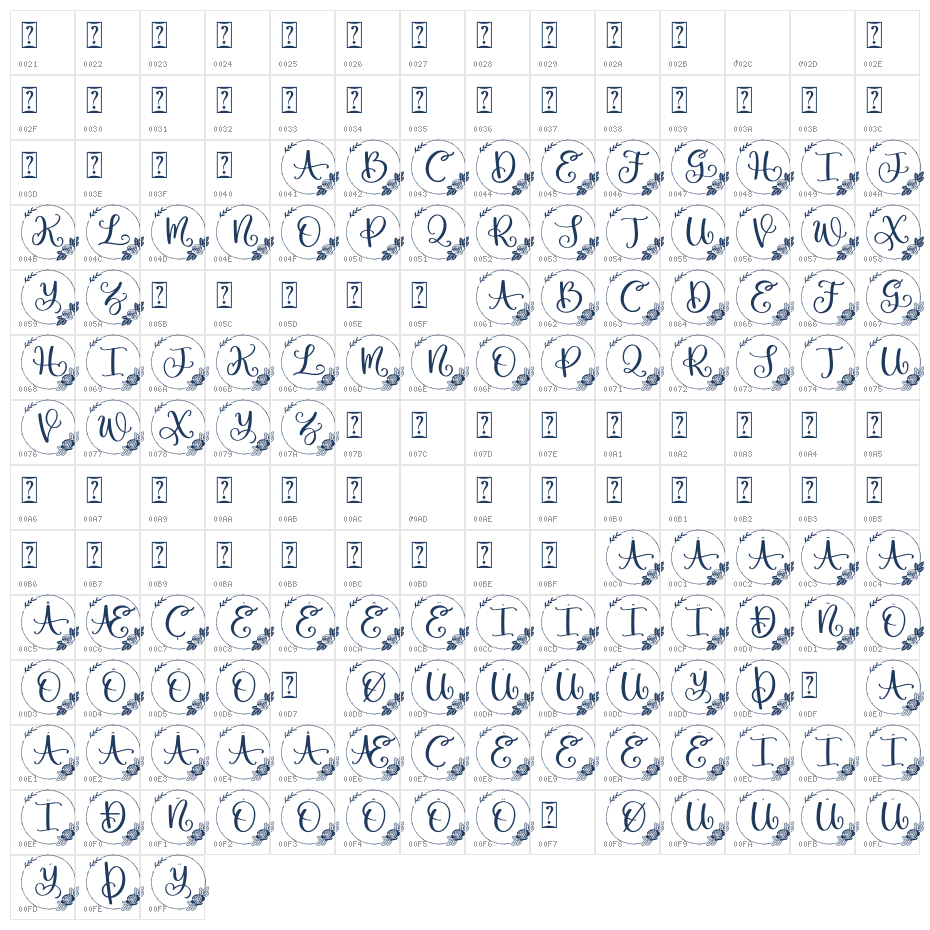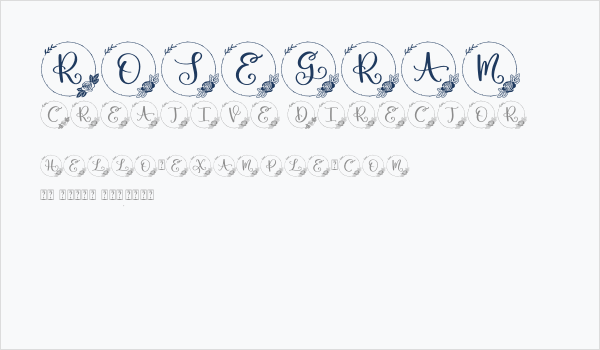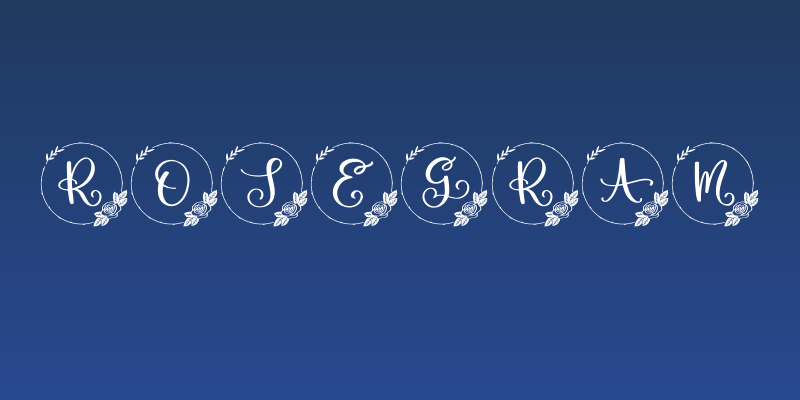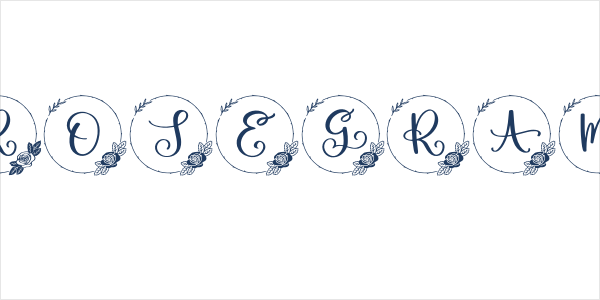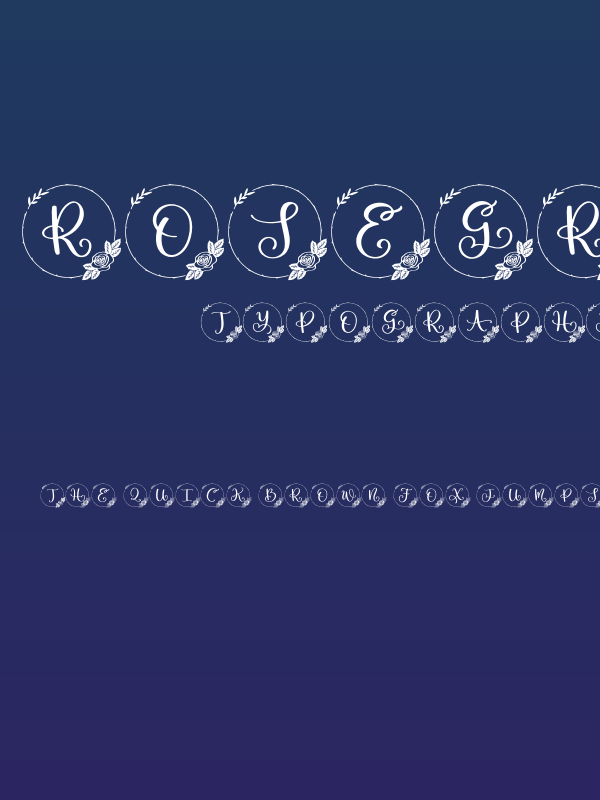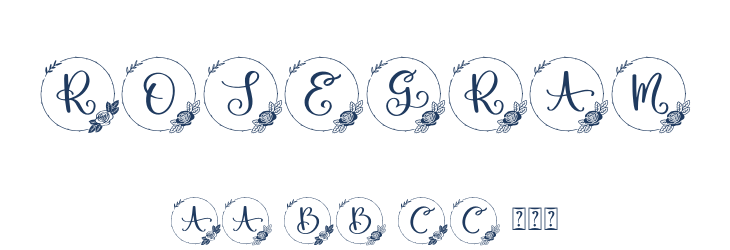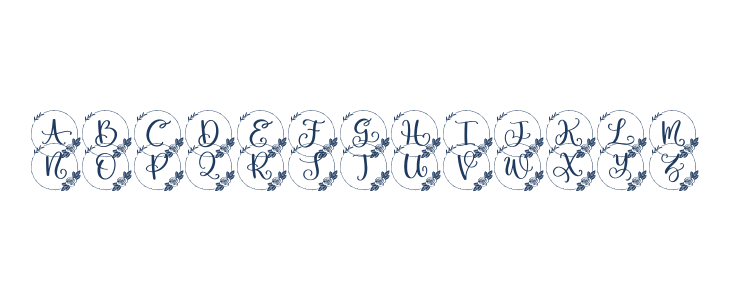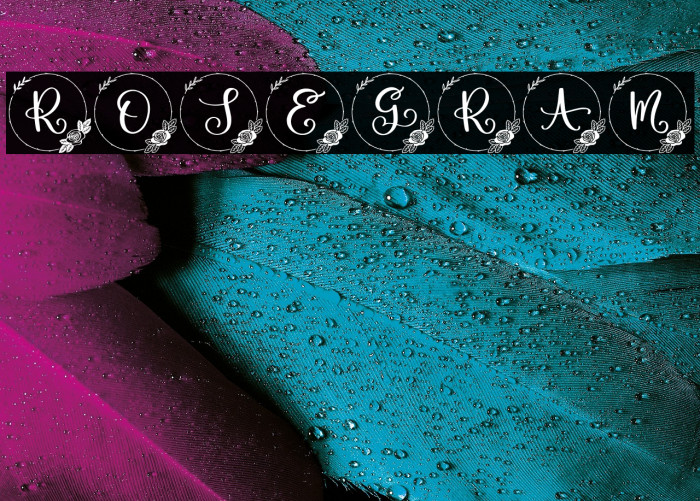
Rosegram Font
Rosegram Description
Elegant, cursive script font with floral decorative elements surrounding each letter, featuring a delicate and ornate style.
| Overall Style | Elegant, Ornate, Vintage |
| Use Case | Headlines, Invitations, Logos, Decorative Text |